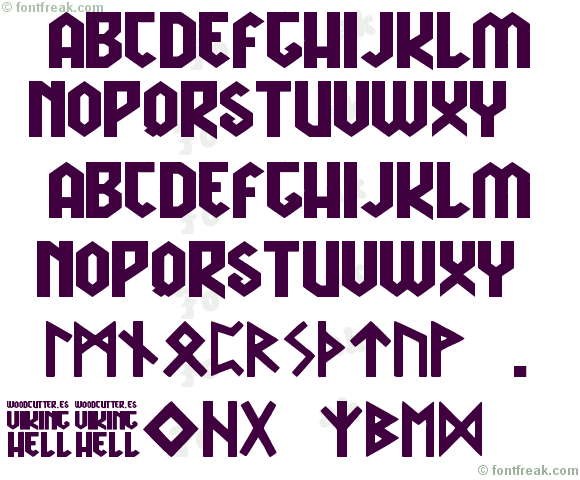
Viking Hell
About Viking Hell
Viking Hell is a striking display typeface crafted by woodcutter Manero, embodying a unique blend of dramatic flair and bold design. As a decorative font, it features robust, angular letterforms that evoke the fierce spirit of Viking culture, making it an excellent choice for projects that require a strong visual impact. The stroke weight is consistent throughout, contributing to a solid and cohesive appearance, while the spacing between letters is carefully considered to ensure readability without sacrificing style.
The font is adorned with distinctive decorative elements that enhance its thematic resonance, reminiscent of ancient runes and Norse mythology. This characteristic makes it particularly suitable for a variety of creative applications. Ideal use cases for the Viking Hell font include eye-catching movie posters that seek to convey adventure and excitement, captivating book covers for fantasy novels, and bold branding for themed restaurants or bars. Additionally, it can serve as an impactful choice for merchandise designs, such as apparel or accessories that target fans of Norse culture.
What truly sets Viking Hell apart is its ability to blend artistic expression with functionality, making it a versatile choice for anyone in need of a font that communicates strength and creativity. Its unique visual characteristics ensure that any project utilizing this typeface will leave a lasting impression on its audience.